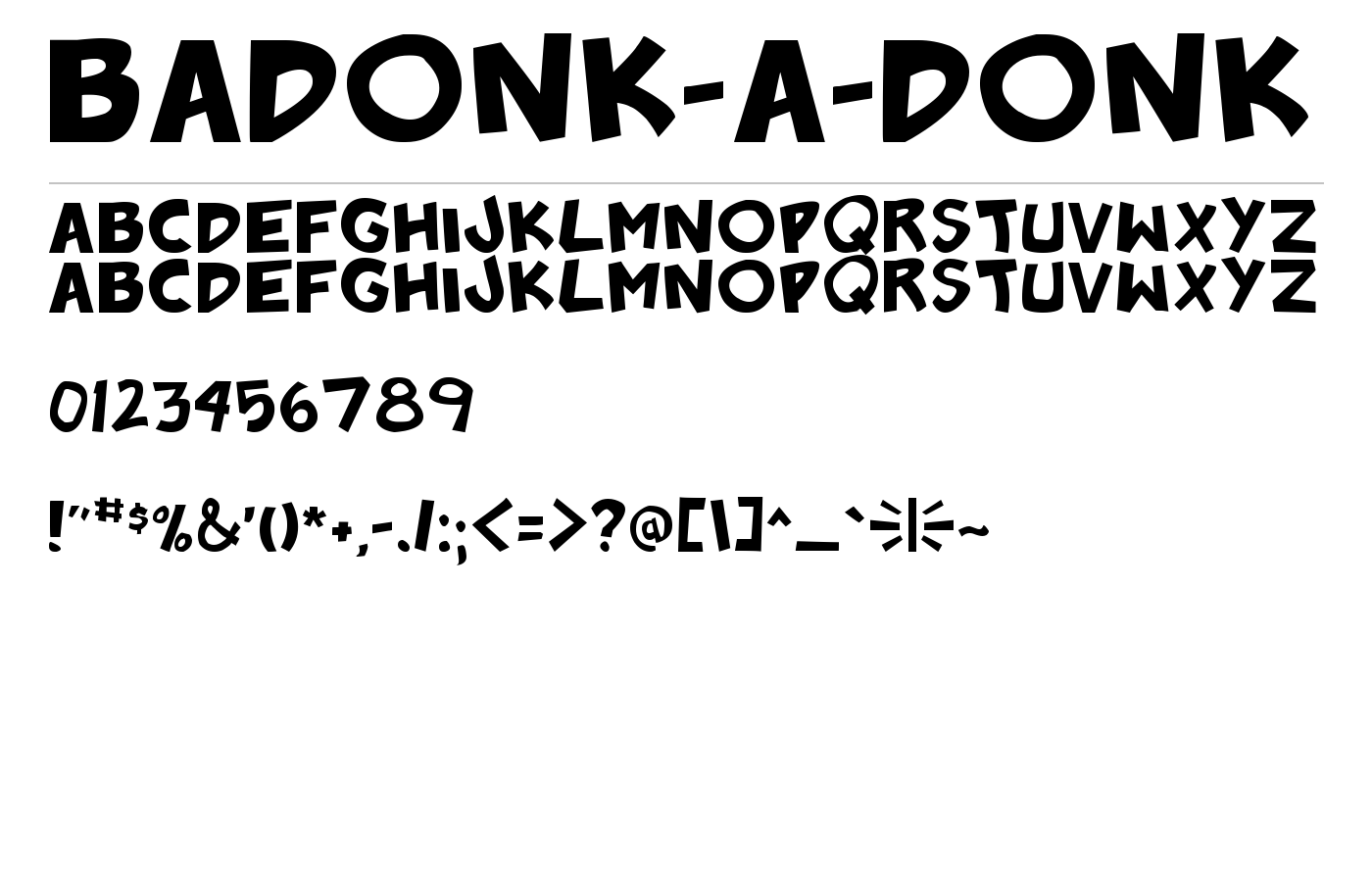
Badonk-a-donk is a bold, playful sans serif font characterized by its quirky, uneven letter shapes and lively irregular strokes. With its wide, chunky forms and informal style, it conveys a fun, energetic vibe perfect for attention-grabbing headlines, posters, and creative branding aimed at a youthful or casual audience. This font works best when a spirited, unconventional look is desired, bringing a sense of personality and vibrancy to designs.
Badonk-a-donk Font
About Badonk-a-donk Font
| Font family | Badonk-a-donk Font |